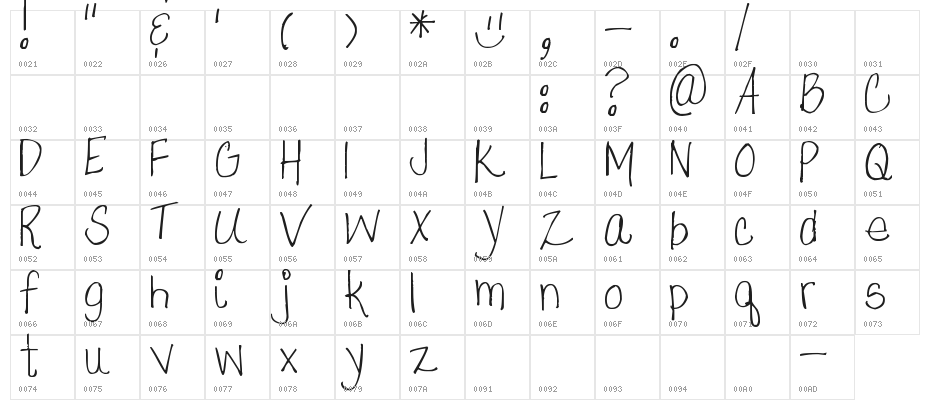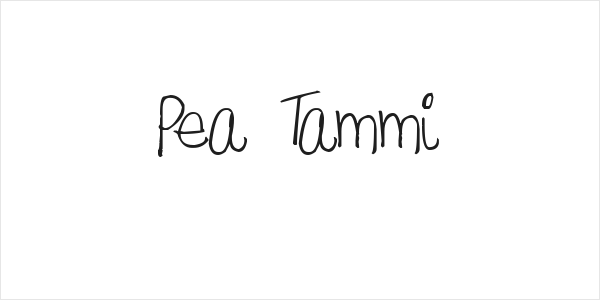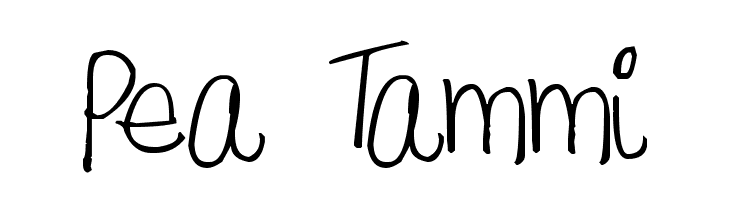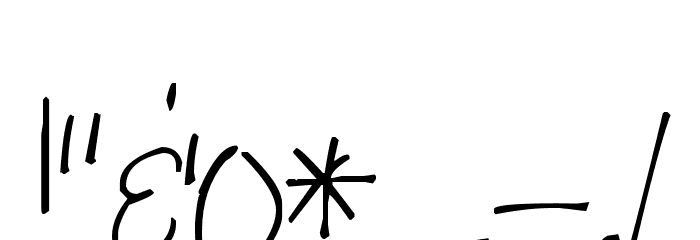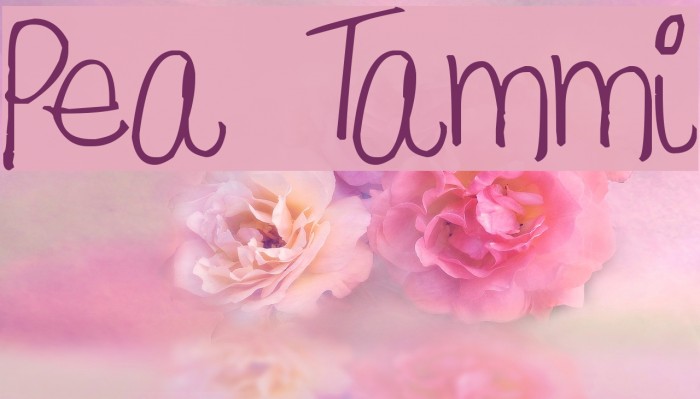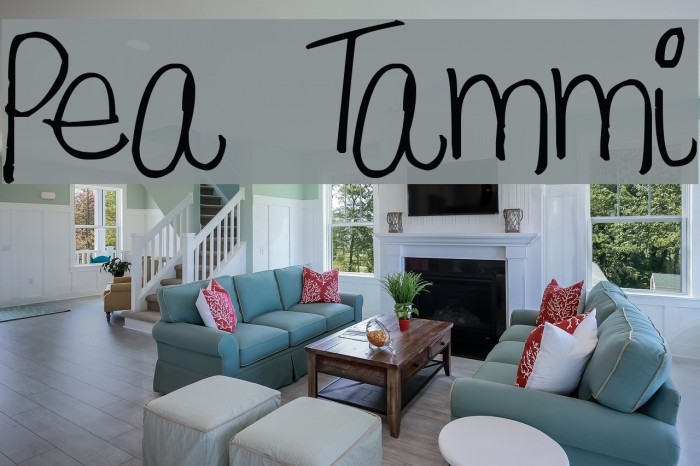
Pea Tammi Font
Pea Tammi Description
This font features a playful and whimsical handwritten style, characterized by its irregular and organic letterforms. The strokes are uneven, giving it a casual and friendly appearance. The uppercase and lowercase letters maintain a consistent flow, with some letters having unique loops and curves that add to its charm. The numbers and special characters follow the same playful aesthetic, making it suitable for creative and informal designs.
| Overall Style | Casual, Playful |
| Use Case | Headlines, Informal text, Creative projects |
| Proposed Projects | Ideal for greeting cards, children's books, playful branding, and casual invitations. |